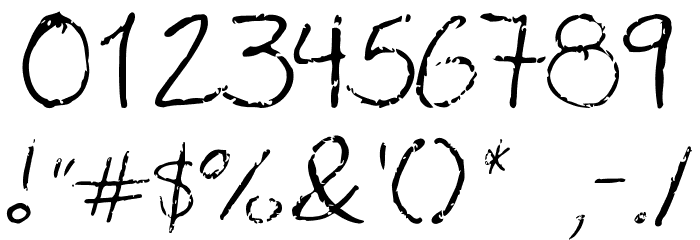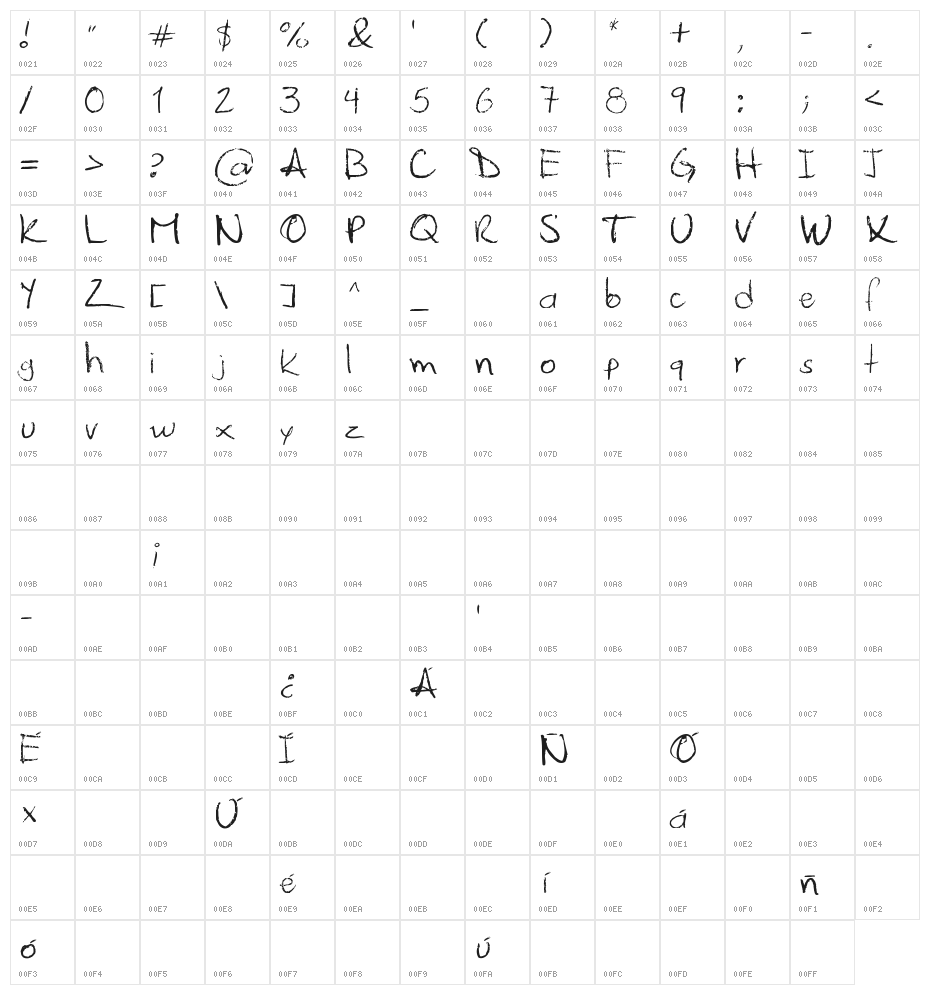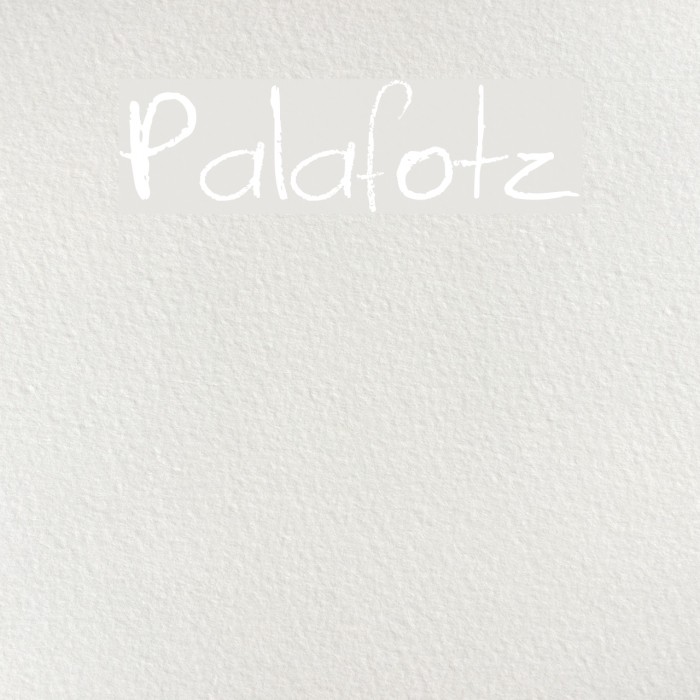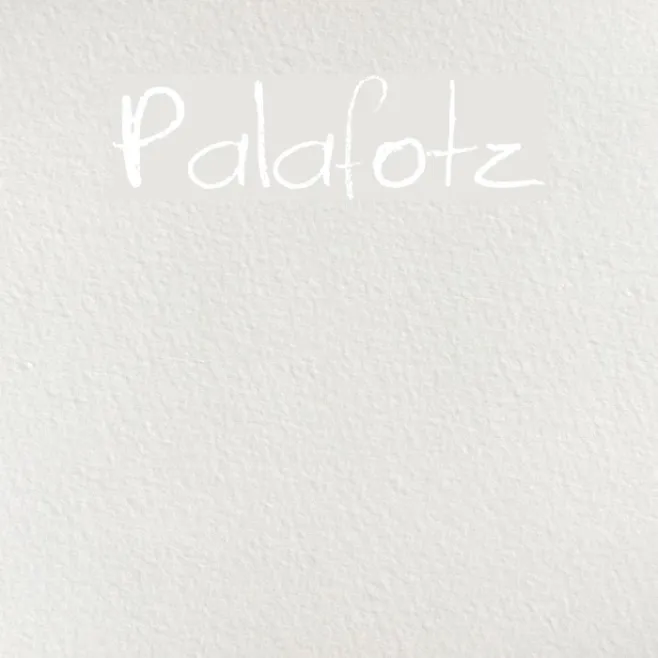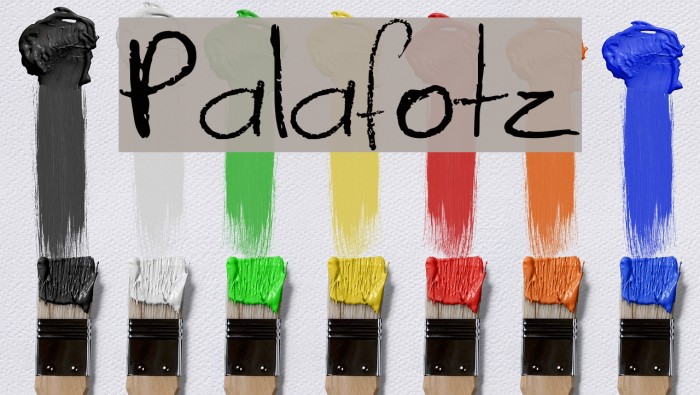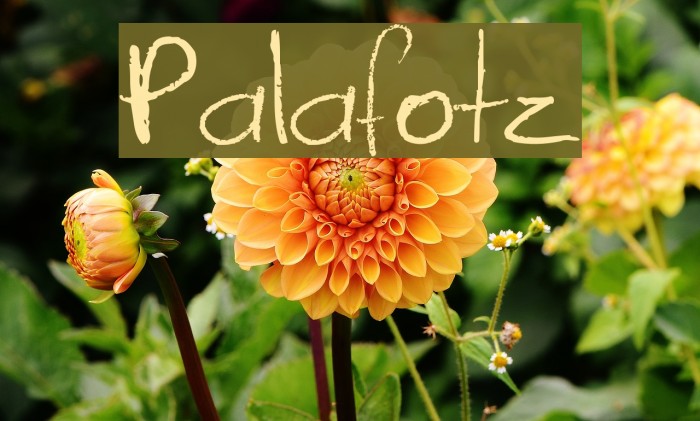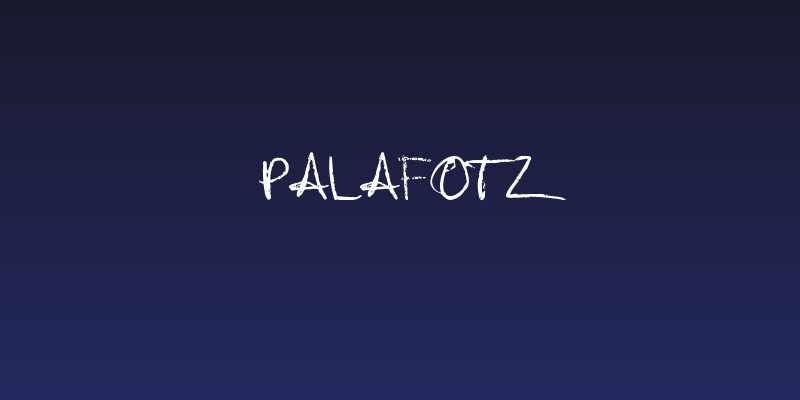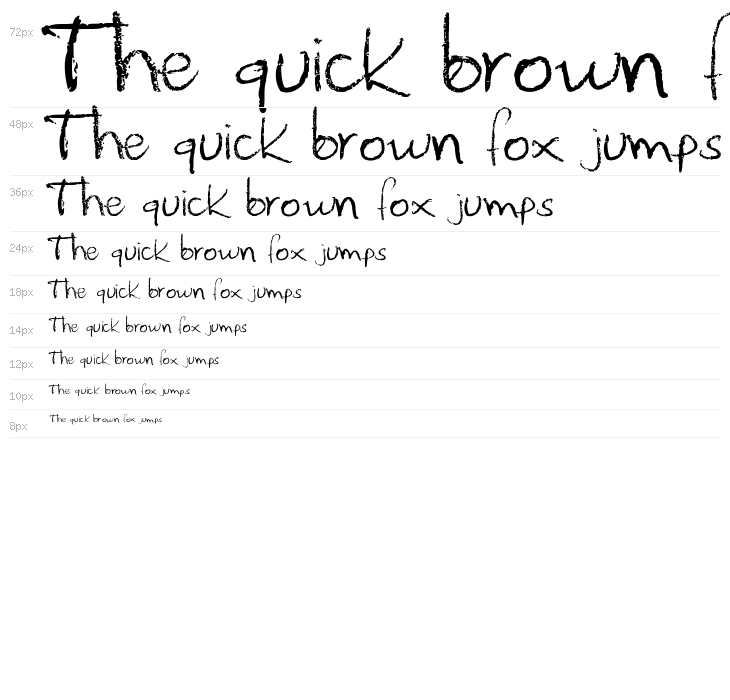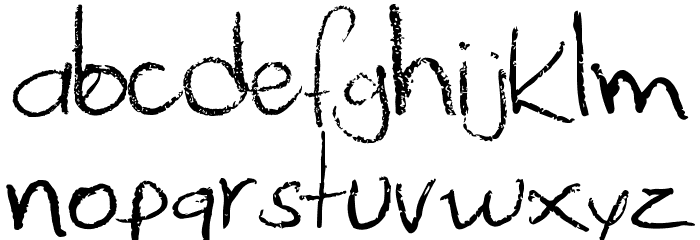
Palafotz Font
Palafotz Description
This font exhibits a rough, textured appearance reminiscent of hand-drawn or painted letters. The characters have an irregular, organic quality, with varying stroke thickness that adds a dynamic and artistic flair. The uppercase letters are bold and assertive, while the lowercase letters maintain a consistent style, offering a cohesive look. Numbers and special characters follow the same rugged aesthetic, making the font suitable for creative and informal designs. Its unique style is eye-catching and can add a personal touch to any project.
| Overall Style | Artistic |
| Use Case | Logos, Posters, Creative projects |
| Proposed Projects | Ideal for artistic projects, posters, album covers, and any design requiring a personal, hand-crafted feel. |